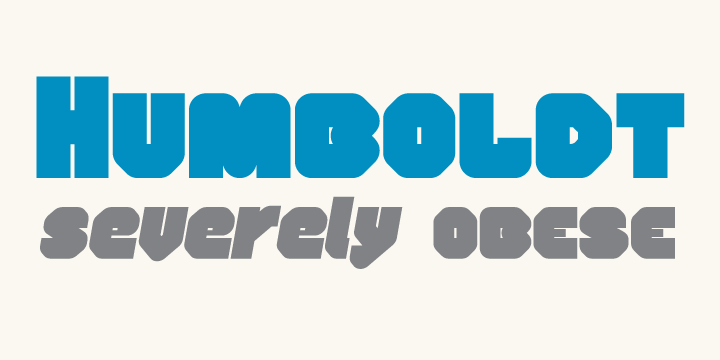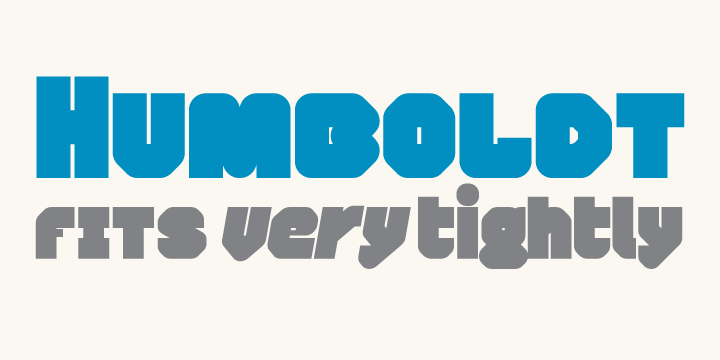
EB Humboldt
Humboldt is an ultra fat headline face.
How bold can you go? Humboldt is an experiment to push the boundaries of character recognition: Its forms are extremely bloated yet highly distinctive. Open type savvy features provide an unexpected embellishment: small capitals, both lower case and upper case figures and several alternate glyphs are intrinsic in the design.
Humboldt makes nice headlines and striking poster typography or logotypes. It can to some extent be used for setting even short phrases of text.